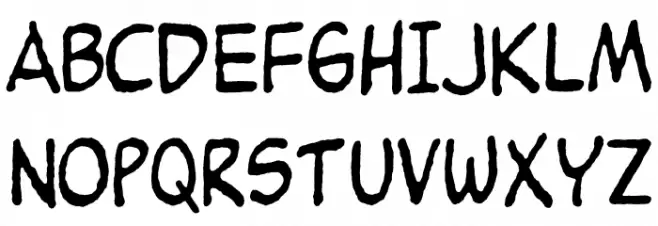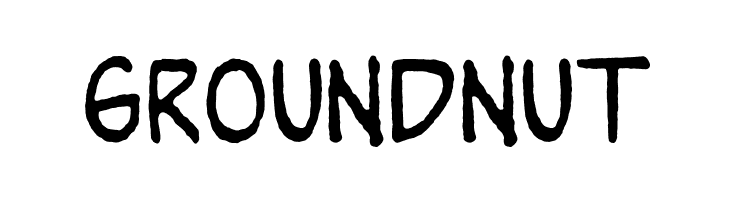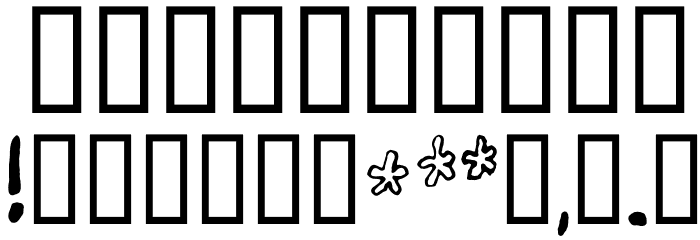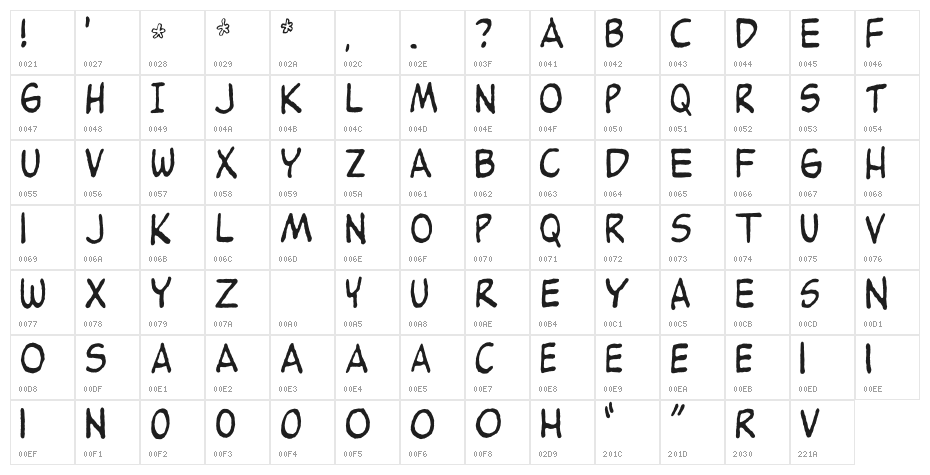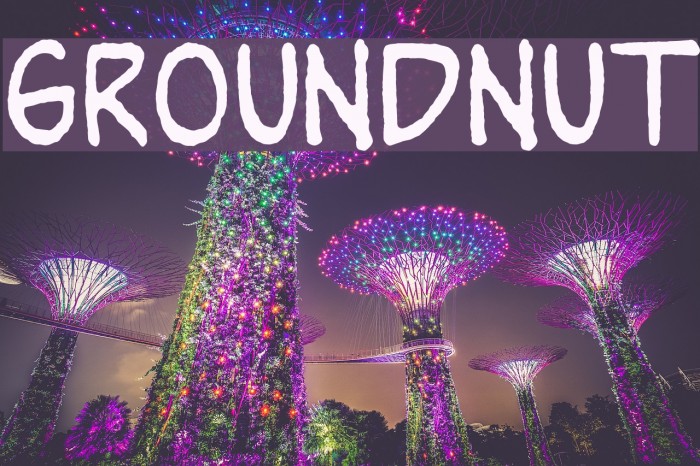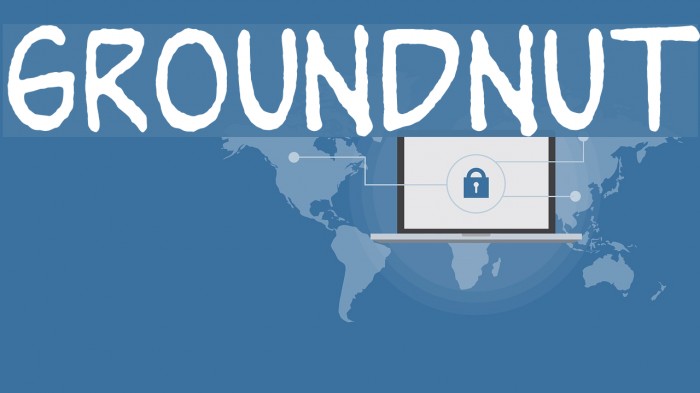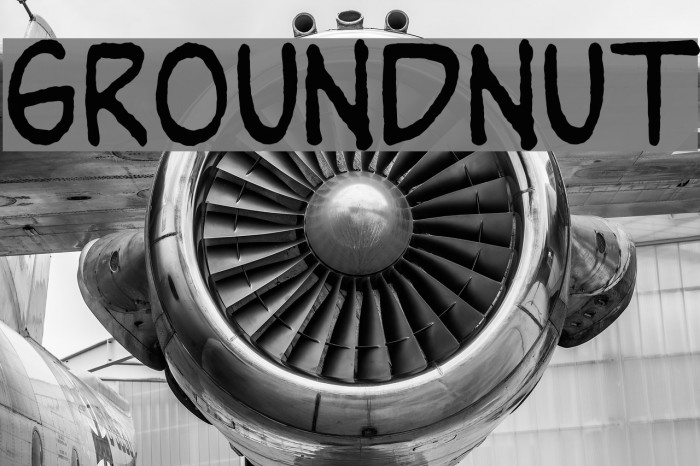
Groundnut Font
©1999 John K. BarrowAestheticwareIf you use this font or even just like it, you MUST do something to make the world look a little better. Violators will be shotBased on the friendly handwriting of SparkyAlternate characters included